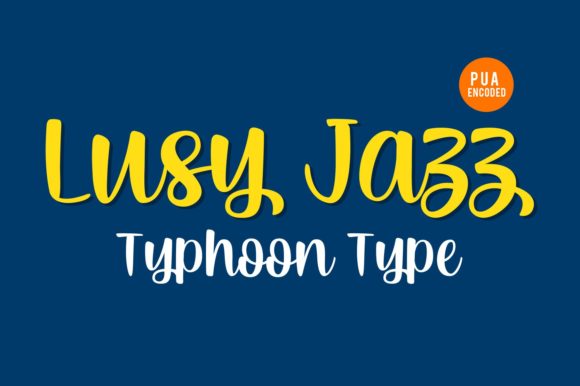
In a world of digital communication, your words have the power to captivate, inspire, and connect with audiences like never before. Introducing Lusy Jazz, the enchanting script font that transforms your messages into works of art. A handwritten masterpiece crafted by Typhoon Typeâ„¢ - Suthi Srisopha, Lusy Jazz dances across the screen with its graceful curves and timeless elegance.
With Lusy Jazz, you'll discover a font that transcends boundaries. Its versatility knows no limits, effortlessly adapting to a symphony of creative expressions. From the delicate strokes of wedding invitations to the heartfelt messages of thank you cards, Lusy Jazz adds a touch of sophistication and charm to every letter. Unleash your creativity and watch as your designs bloom with an allure that captivates the senses.
Beyond its aesthetic allure, Lusy Jazz is a font steeped in functionality. Its unwavering clarity ensures effortless readability, even at smaller sizes, making it the perfect choice for logos, business cards, and presentations. Its ability to harmonize with other fonts seamlessly creates visually striking compositions that command attention and leave a lasting impression.
Embrace the artistry of Lusy Jazz and unlock a world of expressive possibilities. Let your imagination soar as you craft designs that evoke emotions, convey messages with impact, and create connections that resonate. Lusy Jazz is more than a font; it's an invitation to embark on a creative journey where your words take center stage and your designs become masterpieces.